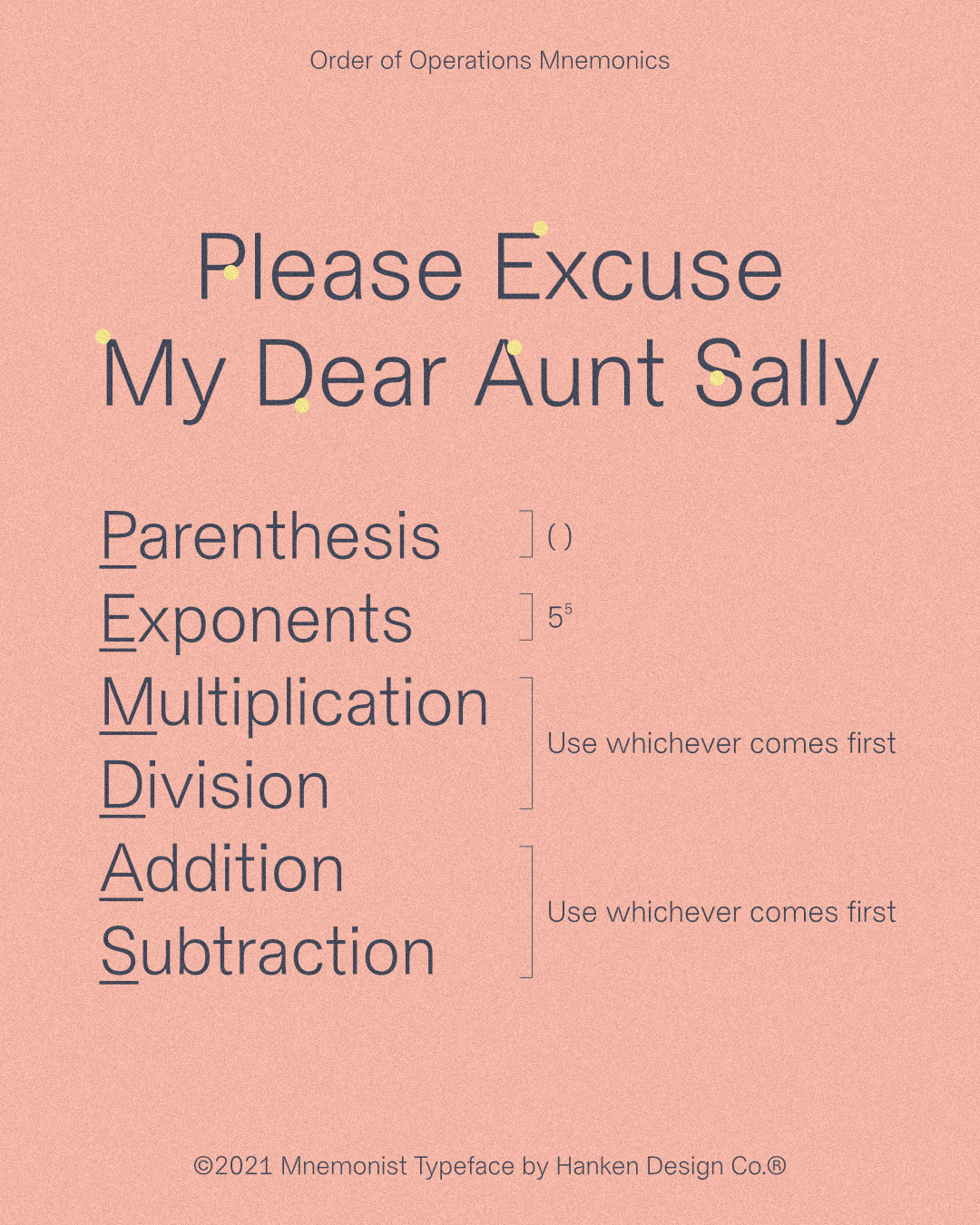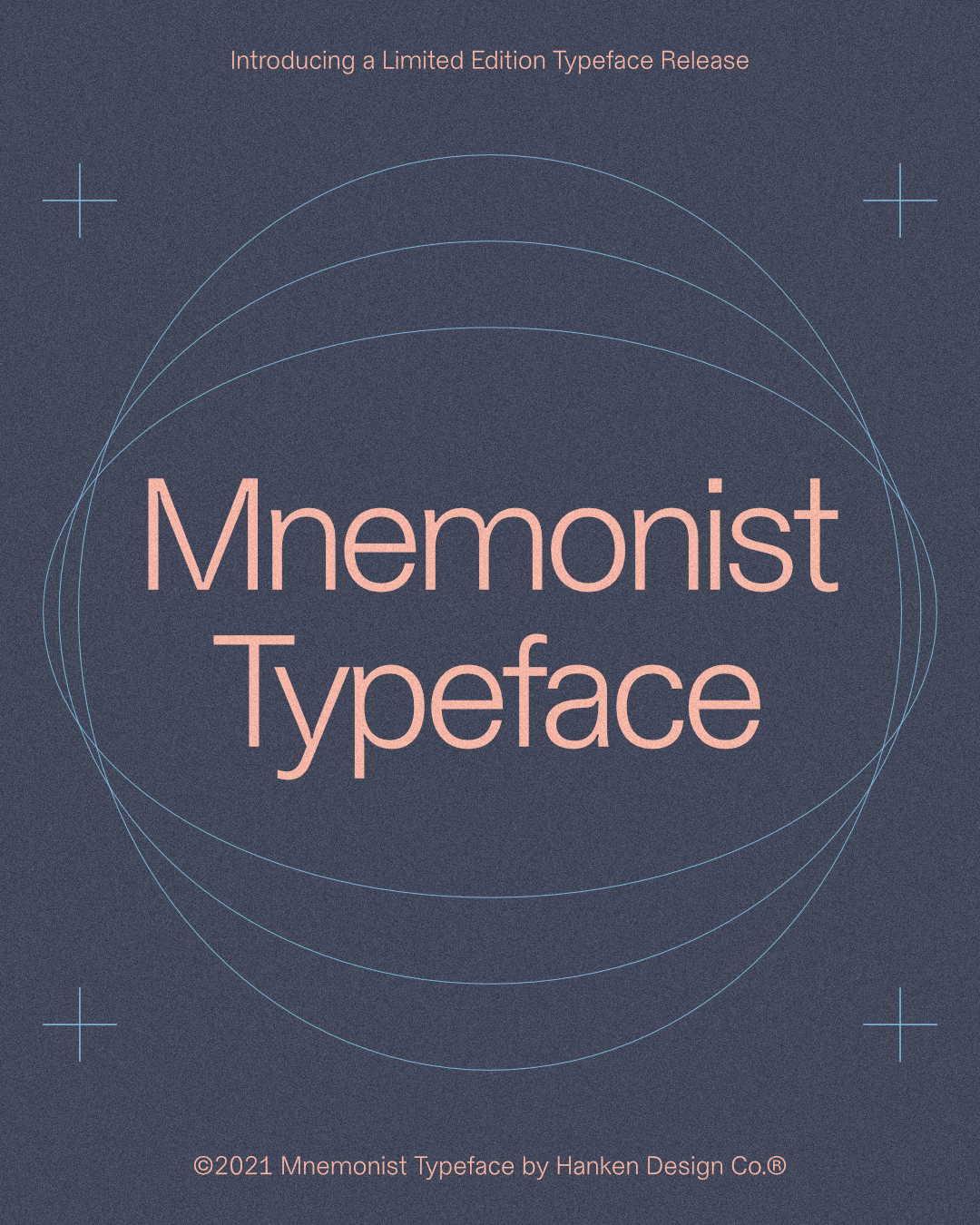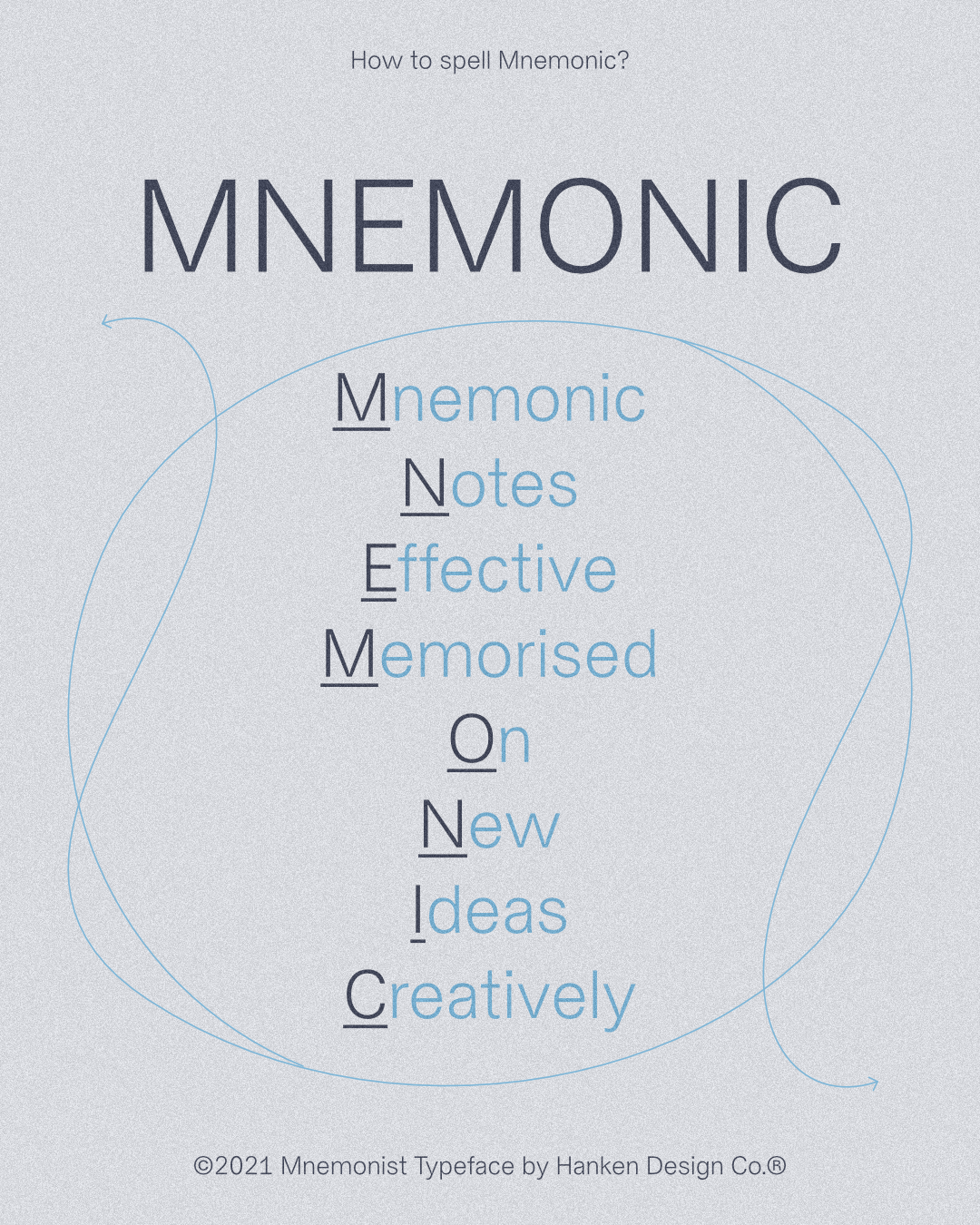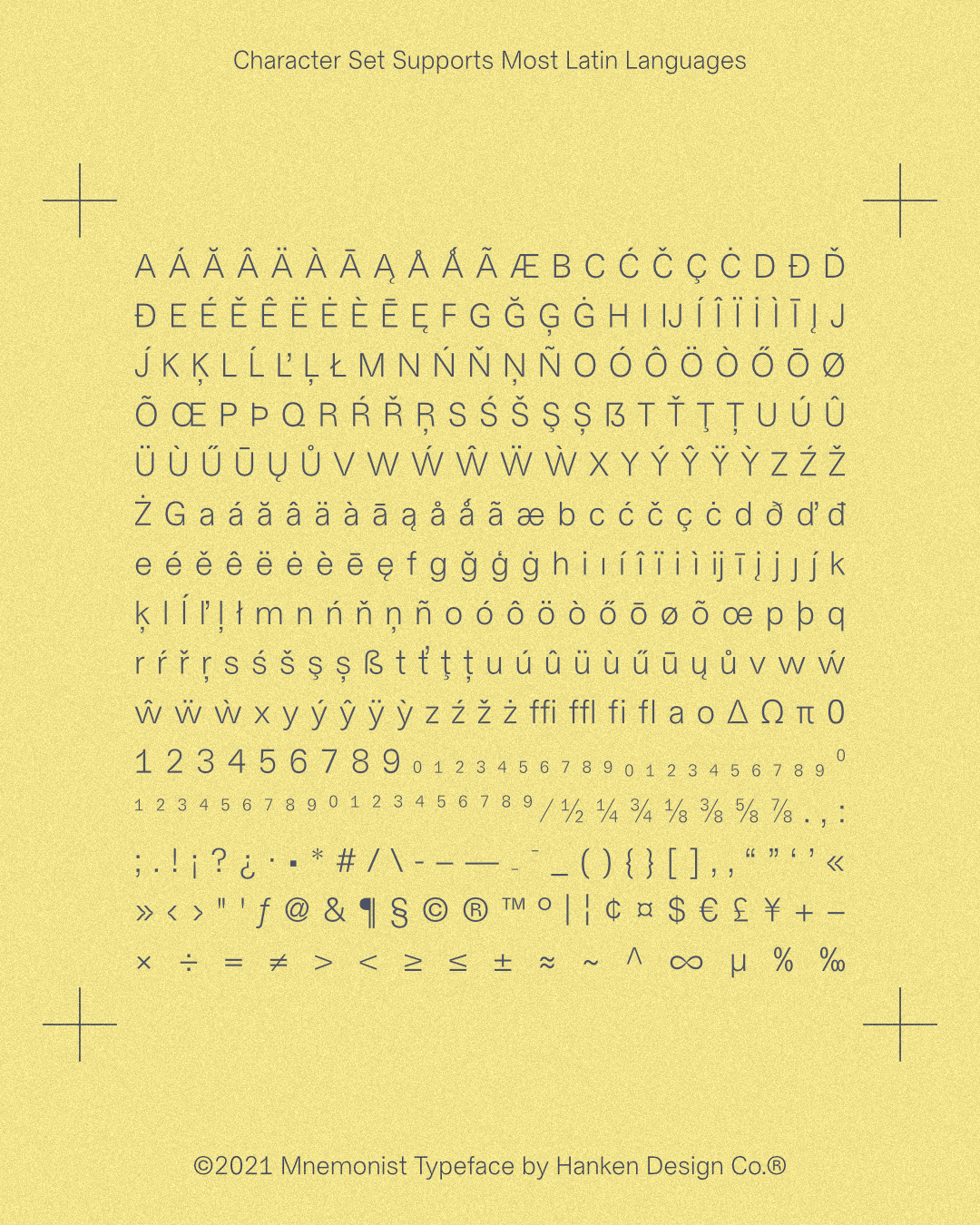
Mnemonist is a traditional-looking sans serif typeface that was inspired by the idea of mnemonics and the speed of how we read the letters in a word. The conscious mind normally skips the rendering of each letter per word and assumes the spelling by the approximate length, starting letter, and ending letter of the word. We created a simple one-weight-one-style typeface that is great for text and long-form reading.
Design+Development: Alfredo Marco Pradil
Company: Hanken Design Co.
Glyphs: 380+ per style
Styles: 1 (no italic)
Class: Sans Serif, Text